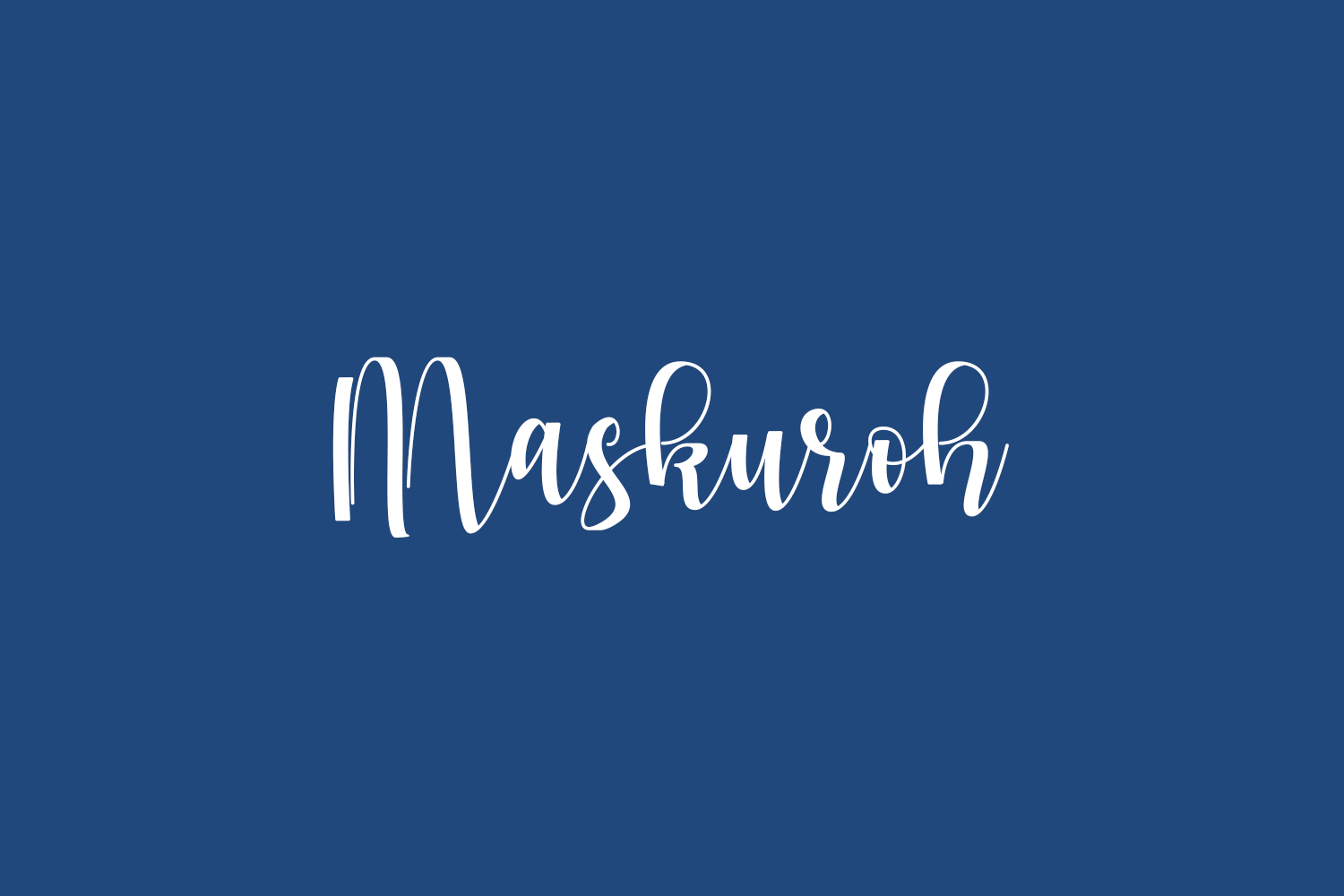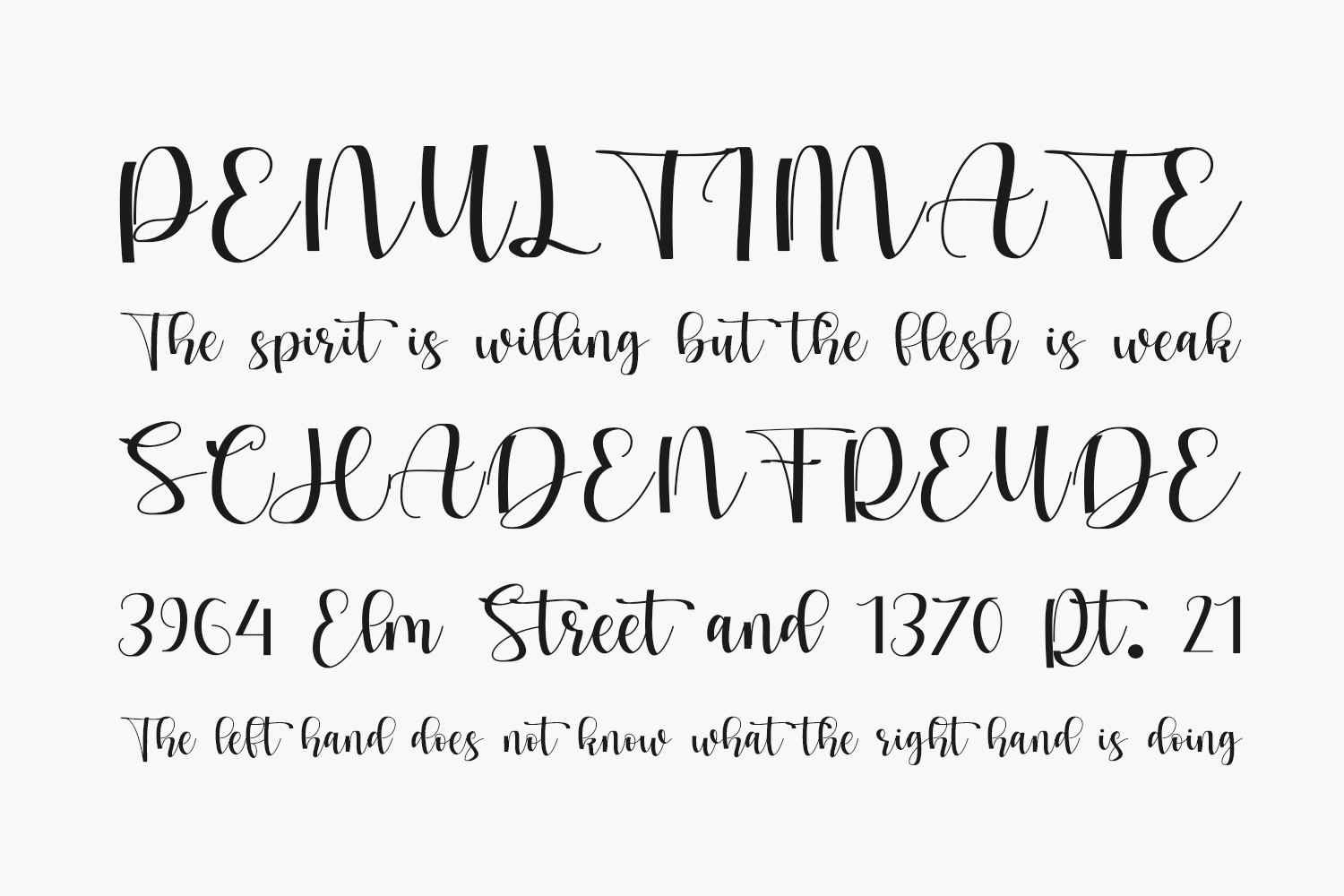
Maskuroh Free Font is a delicate and elegant handwritten font. Its distinct and well rounded letters make this font a masterpiece. Fall in love with its incredibly versatile style and use it to create spectacular designs! It features a varying baseline, smooth lines, gorgeous glyphs, and stunning alternates. Maskuroh Free Font was designed by Fiqiart and is free for personal use only. Please purchase the full version for commercial use.